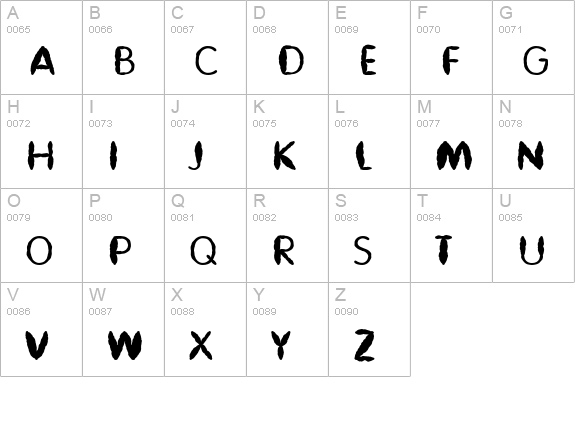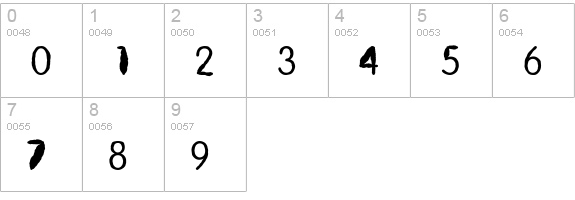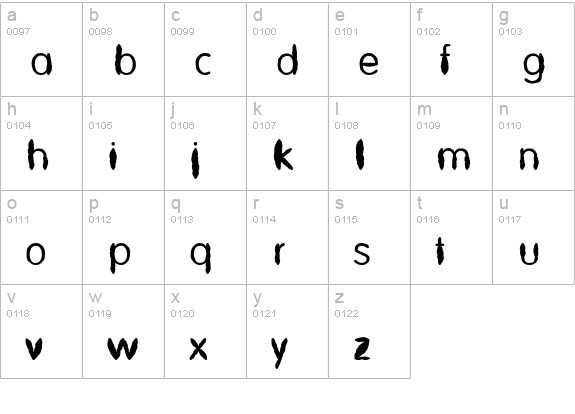
Gnarled SF Font Details
Gnarled SF font is a striking and unique typeface that exudes a sense of rugged beauty and organic charm. Its twisted and knotted letterforms give it a distinctively gnarled appearance, perfect for adding a touch of character to any design project. This free font is ideal for creating eye-catching headlines, logos, and branding materials that stand out from the crowd. Its intricate details and rough edges make it a versatile choice for both digital and print applications. Gnarled SF font is freely available to download at FontsMarket.com, making it easily accessible for designers and creatives looking to add a touch of rustic flair to their work. Embrace the imperfect beauty of Gnarled SF font and let your designs truly shine with its captivating charm.